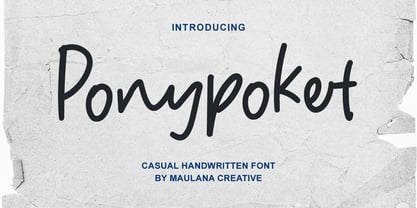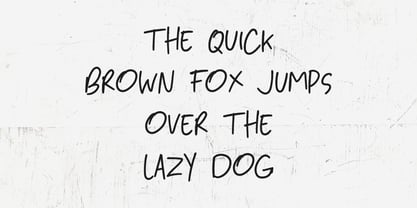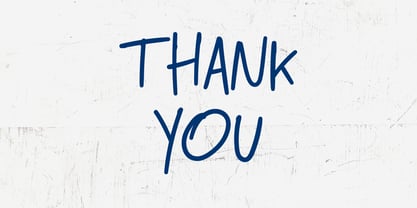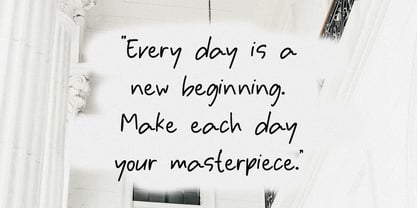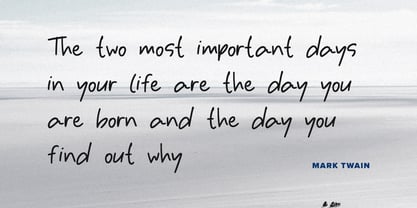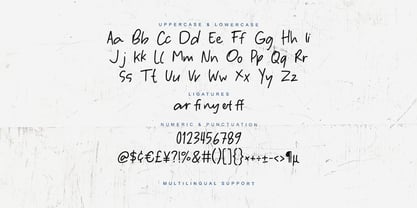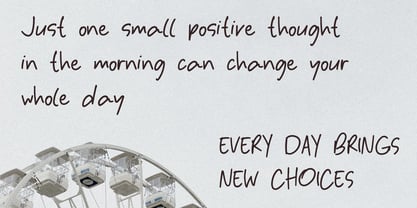
MC Ponypoket
by Maulana Creative
The MC Ponypoket Font Family was designed by Gilang Maulana and published by Maulana Creative. MC Ponypoket contains 1 styles. More about this family
Ponypoket casual monoline handwritten script font. Fun character with a bit of ligatures. To give you an extra creative work. Ponypoket font is good for logo design, Social media, Movie Titles, Books Titles, a short text even a long text letter and good for your secondary text font with script or serif. Make a stunning work with Ponypoket font.
Designers: Gilang Maulana
Foundry: Maulana Creative